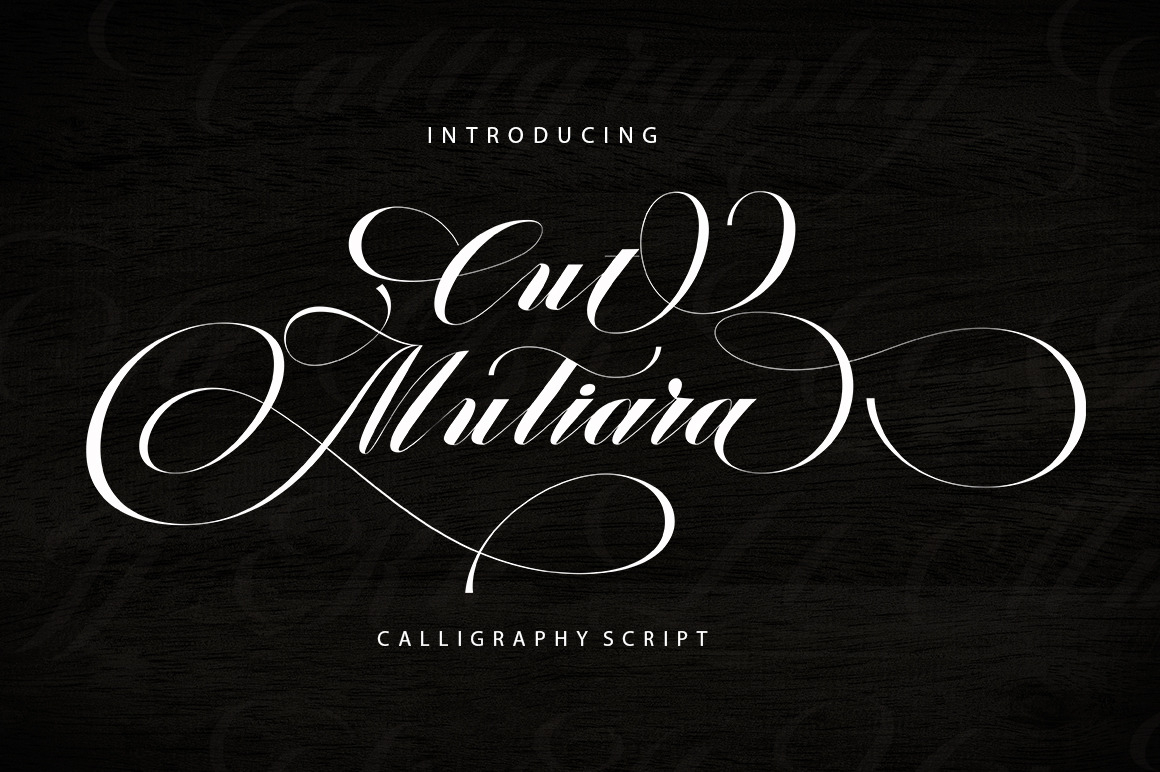
Cut Mutiara
Cut Mutiara is a font family published by Typehill.
Cut Mutiara Calligraphy fonts embody the artistry of hand-written letters, blending grace and detail. They usually have fluid, flowing lines and embellished strokes that convey a sense of timeless elegance. The fonts vary in style from ornate and classic to modern and minimalistic, with each letter often featuring unique flourishes and connecting strokes. This decorative quality makes calligraphy fonts ideal for formal events, invitations, and any design where a touch of sophistication and beauty is desired. The ultimate goal of calligraphy fonts is to enhance the visual appea